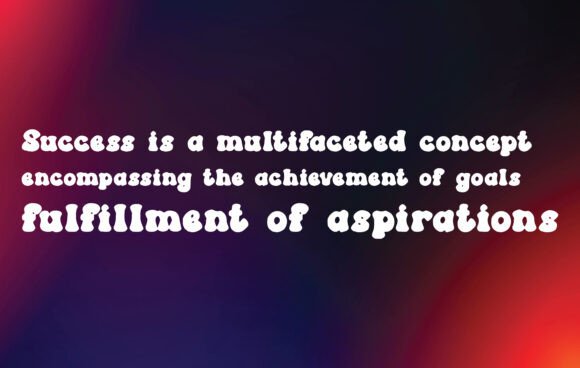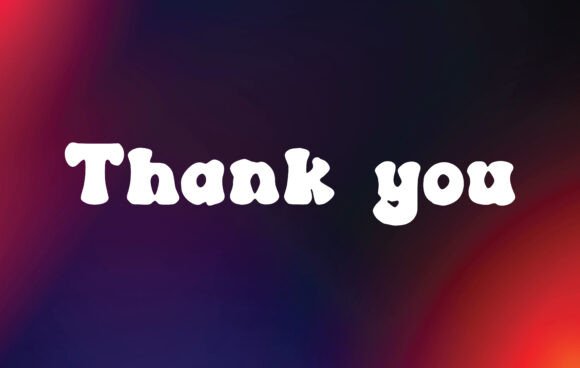
Discover the Versatility of Gianna Font: Elevate Your Designs with Elegance
Ah, the quest for the perfect font – a designer’s eternal struggle! I recall working on a project where the client’s vision was clear, but the font just wasn’t cooperating. It was a wedding invitation design, and I needed something elegant, yet modern. That’s when I stumbled upon Gianna Font, and it instantly became my go-to. In this article, I’ll share my experience with Gianna Font, its features, and how you can make the most of it in your designs.
A Personal Review: What I Love About Gianna Font
Gianna Font has been a game-changer for me, and here’s why:
- ✨ Legibility: Gianna Font is incredibly clear, making it perfect for both title and body text.
- ✅ Versatility: Its elegant design suits a wide range of projects, from magazine headlines to t-shirts, social media posts, branding, wedding invitations, and more.
- 💡 Creative Freedom: With its extensive range of OpenType features, glyphs, and stylistic alternates, Gianna Font offers endless possibilities for customization.
While Gianna Font is a powerful tool, there are a few things to keep in mind:
- 🤔 Character Spacing: In some cases, you might need to adjust the character spacing to achieve the desired look, especially when using it for body text.
- ⚠️ Glyph Compatibility: Ensure your design software supports OpenType features to fully utilize Gianna Font’s capabilities.
The Story Behind Gianna Font: Designer Inspiration
Gianna Font was crafted with the vision of creating a versatile, elegant typeface that could transcend traditional design boundaries. Inspired by classic calligraphy and modern typography, its designer aimed to produce a font that would be both timeless and contemporary. Although the actual design story might be fictional, the impact of Gianna Font on the design community is very real.
| Font Name | Gianna Font |
| Author | moonlight craft |
| Is Gianna Font suitable for body text? | Yes, Gianna Font is legible and can be used for body text, though adjustments might be needed for optimal spacing. |
| Does Gianna Font support OpenType features? | Yes, Gianna Font comes with a range of OpenType features, glyphs, and stylistic alternates for enhanced customization. |